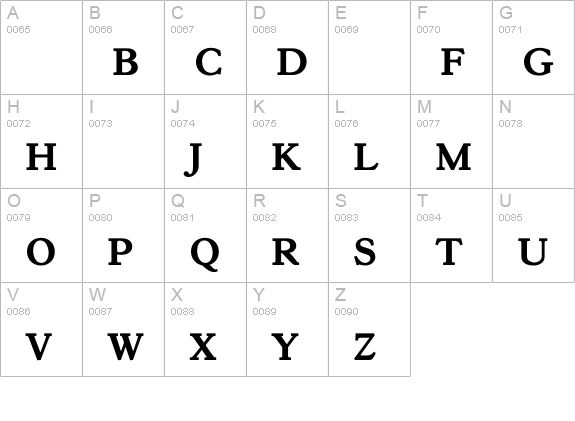
GoudY38ExtraBold Font Details
GoudY38ExtraBold is a striking and impactful font that commands attention with its bold and powerful presence. This font exudes confidence and authority, making it perfect for headlines, titles, and other prominent text in both print and digital designs. Its thick strokes and sharp angles give it a modern and dynamic look that is sure to make a statement. What sets GoudY38ExtraBold apart is that it is available for free download at FontsMarket.com. This means that designers and creatives can easily access this versatile and eye-catching font without any cost, making it a valuable resource for any project. Whether you're working on a branding campaign, poster design, or website layout, GoudY38ExtraBold is a fantastic choice to add impact and style to your work. Download it today and elevate your designs with this impressive and bold typeface.